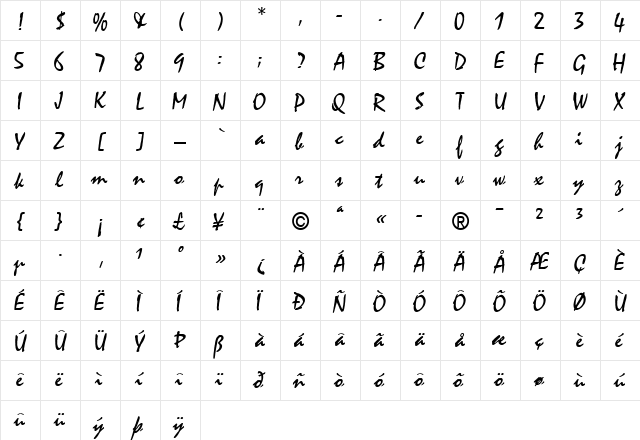
Mistral LT Regular
Design Context for Mistral LT Typeface
Mistral LT is a composed and adaptable typeface that performs quietly and consistently across a wide range of design contexts. Its slender proportions lend an understated elegance to any composition.
Pro Tip: Pair Mistral LT with a font of contrasting weight or personality to build a more expressive typographic hierarchy.